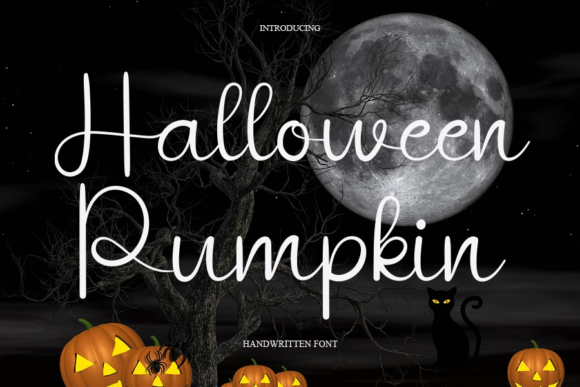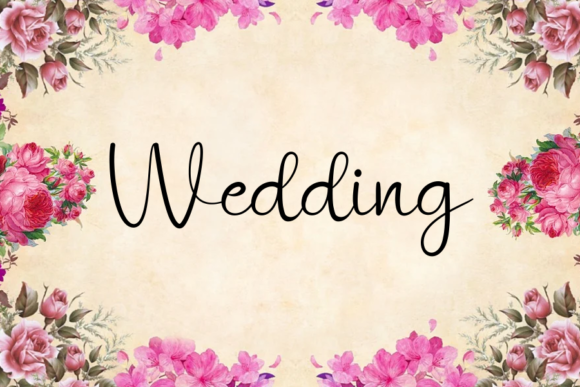
About Halloween Pumpkin Font
Halloween Pumpkin is a sweet and delicate handwritten font. Dainty and joyful, this font will be ideal for writing wedding invitations, cards or any other design that may need a romantic, personalized touch!